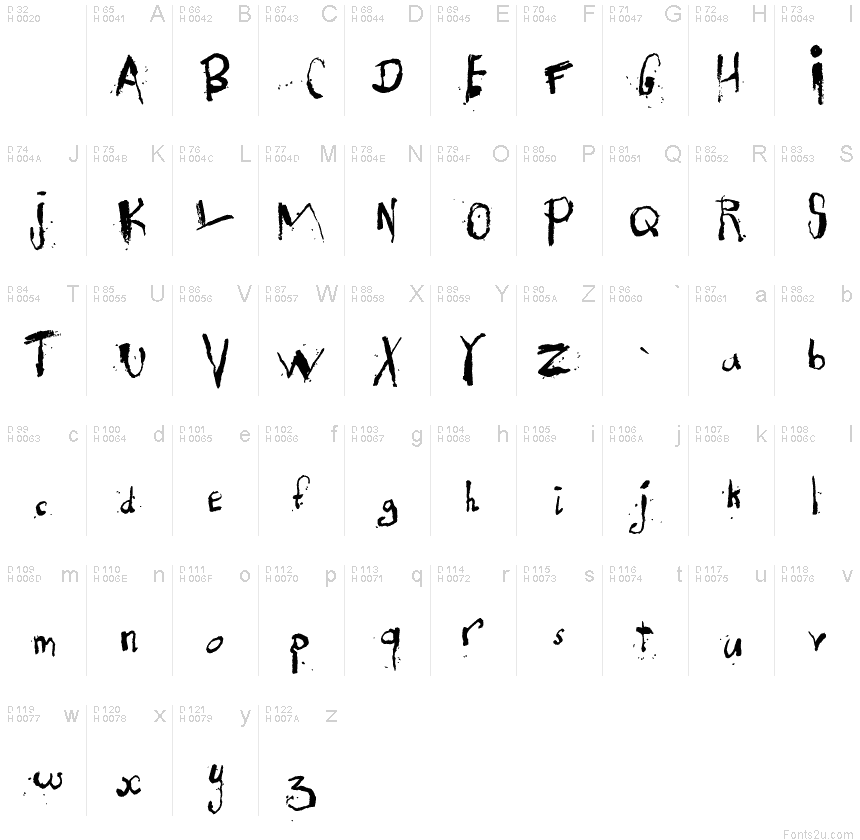
Exhausted by High-Logic.com is a free trash script with ragged, ink-scarred lettering. Uneven strokes and broken edges give the letters a hurried, scraped-down appearance. Scattered flecks extend the mess beyond the main forms.
The distressed marks can merge with photocopied textures, torn-paper graphics, or rough illustration in punk posters, album artwork, and magazine spreads. Its damaged, unruly lettering also gives skate merchandise and underground music branding a recognizable hand-made identity.
Exhausted